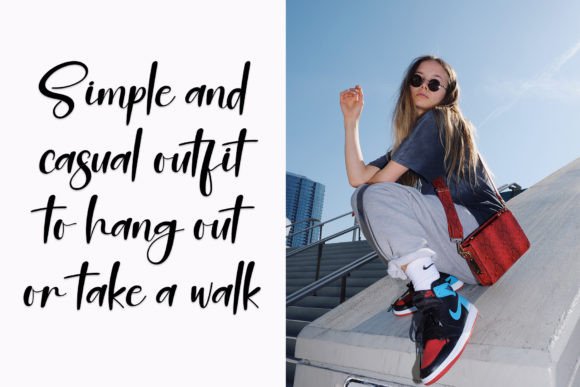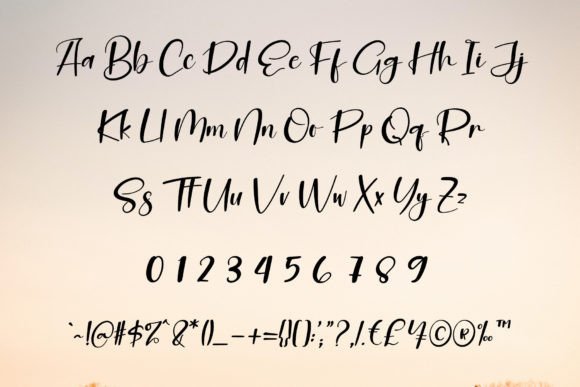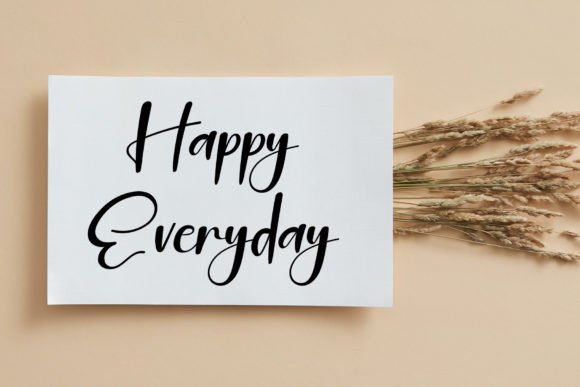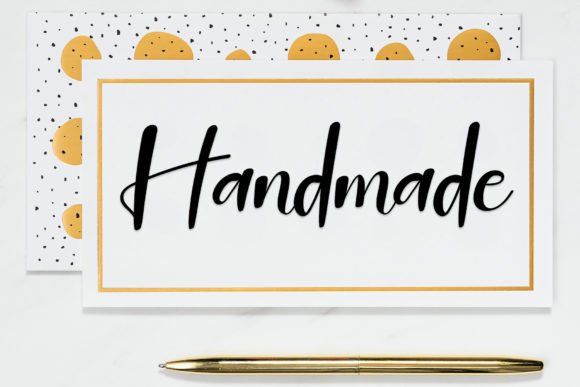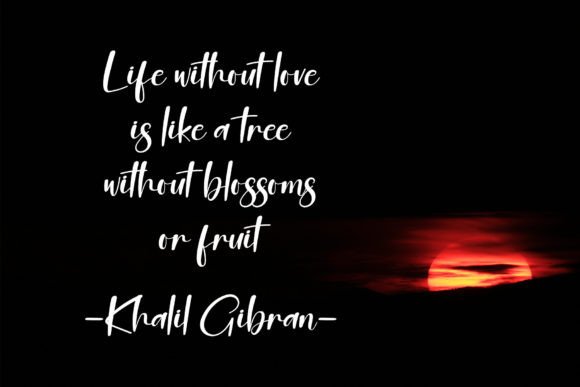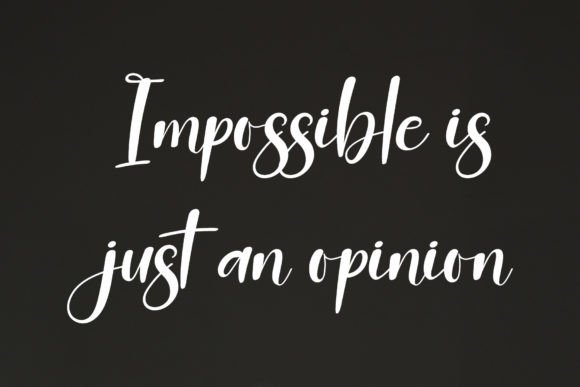
Introduction to Hello Handwritting Font
Do you remember the moment when a single design element completely transformed your project? For many of us, it’s that one special font that makes all the difference. And today, we’re excited to introduce you to a design resource that’s sure to become your new favorite: the Hello Handwritting Font.
As a designer, you’re always on the lookout for high-quality fonts that can elevate your creative projects. With its elegant touch and timeless style, Hello Handwritting Font is the perfect addition to your design toolkit. Whether you’re working on a branding project or creating a digital product with a transparent background, this beautiful handwritten font is sure to impress. And the best part? It’s available for free download, making it an absolute must-have for any designer looking to take their work to the next level.
Key Features of Hello Handwritting Font
- High-quality design resource ideal for creative projects, offering a unique and personalized touch.
- Perfect for use in digital and print media, including logos, branding, and typography-based designs.
- Unique characteristics include a hand-drawn feel, subtle imperfections, and a friendly, approachable tone, making it an excellent choice for creative projects.
Honest Review: Hello Handwritting Font
I recently had the chance to work with the Hello Handwritting Font for a creative project, and I must say it was a pleasant experience. This font has a lot of potential for designers who want to add a personal touch to their work.
- High-quality design: The Hello Handwritting Font is well-crafted and looks great on screen. It’s perfect for adding a touch of elegance to any design project.
- Limited character set: The font’s character set is relatively limited, which may be a drawback for designers who need to use a wide range of characters.
- Not ideal for body text: While the font is great for headings and titles, it may not be the best choice for body text due to its ornate design.
Overall, the Hello Handwritting Font is a solid design resource that can add a touch of creativity to any project. While it has some limitations, it’s definitely worth considering for designers who want to try something new and different.
Hello Handwritting Font
The Hello Handwritting Font is a high-quality design resource perfect for creative projects. With its unique, handwritten style, this font is ideal for adding a personal touch to your designs.
To get the most out of the Hello Handwritting Font, experiment with different font sizes, colors, and styles. You can also combine it with other fonts to create a unique and visually appealing design.
The Hello Handwritting Font is perfect for creating invitations, posters, and social media graphics. You can also use it to add a personal touch to your blog posts, product descriptions, and marketing materials.